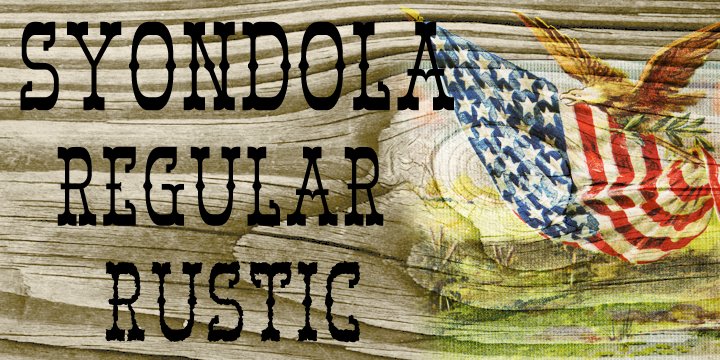
Syondola is Greater Albion’s venture into the Wild-West.
Need something to evoke saloon bars, or the OK Corral, or river Paddleboats? Syondola is it!
Two styles are offered, Regular with clean and precise outlines, and Rustic, which has a deliberately slightly eroded look, for that old and timeworn feel.